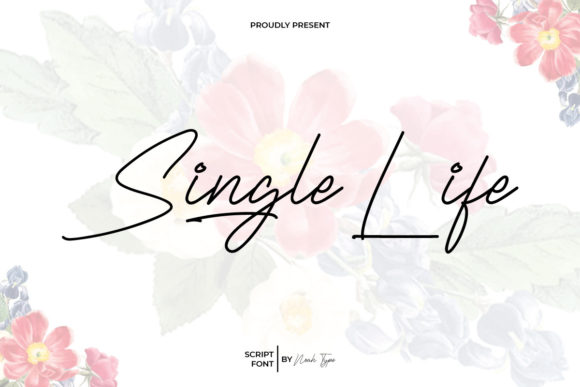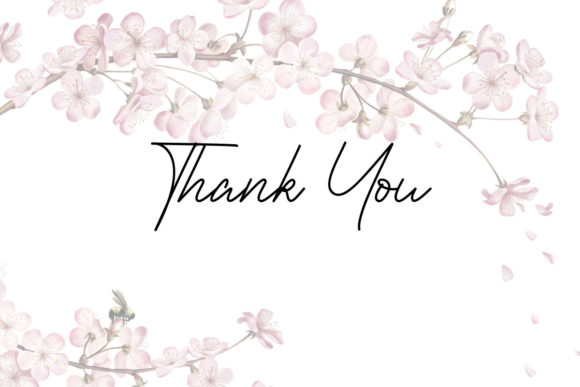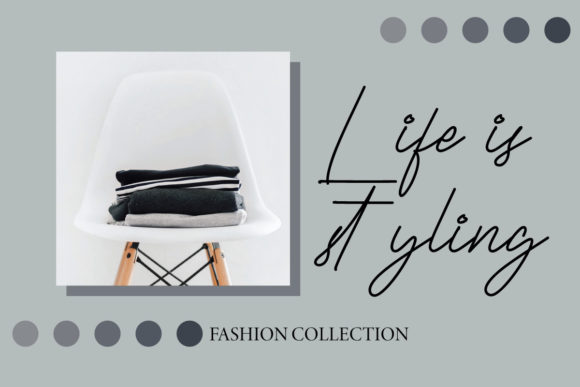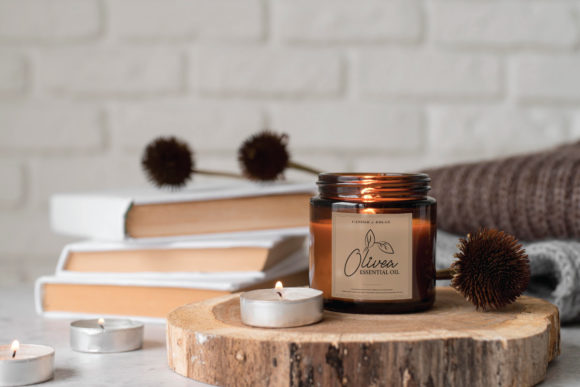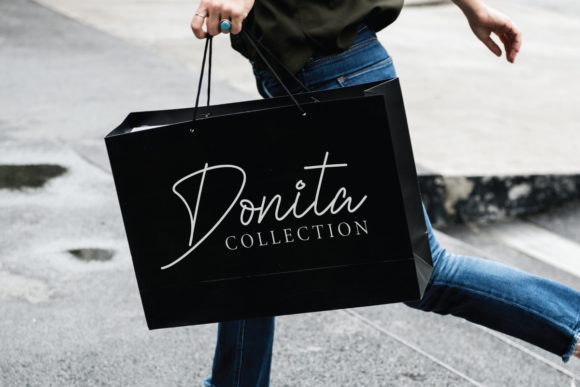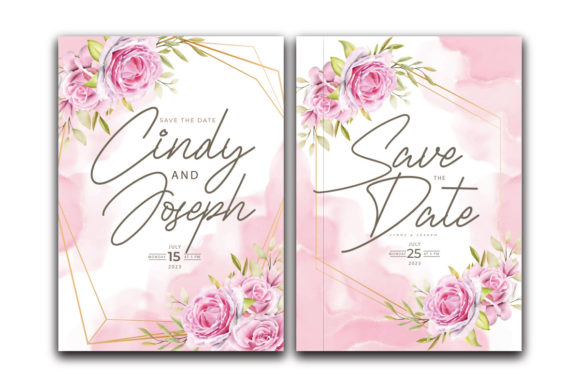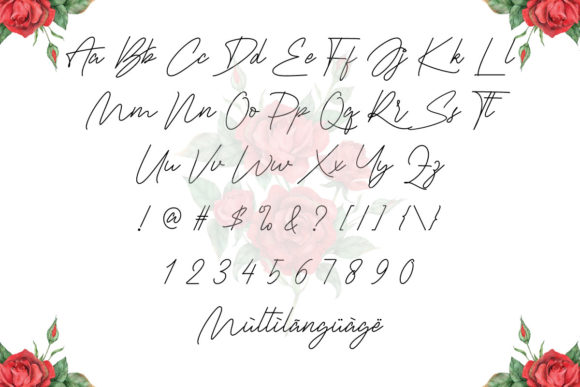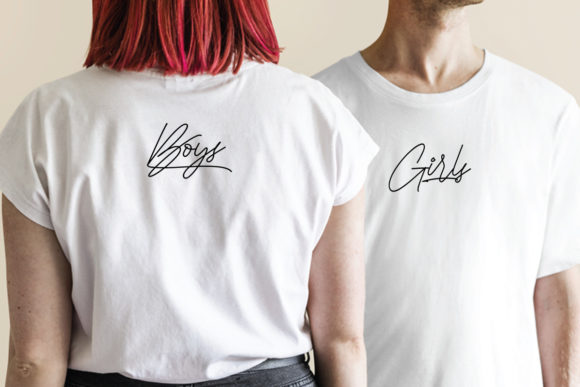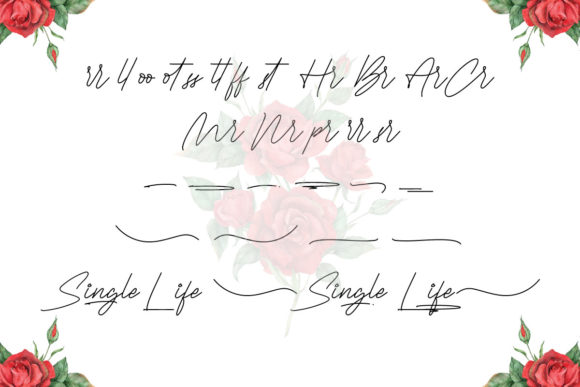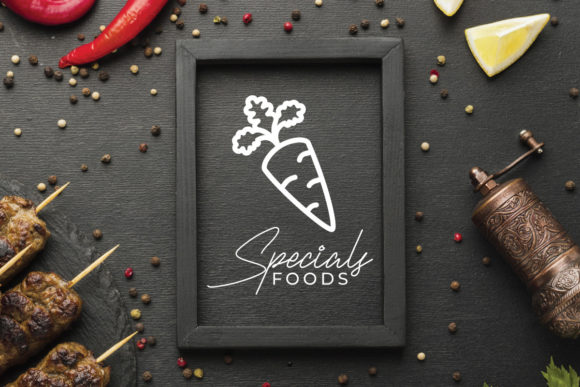
Single Life Font
Single Life is a stylish monoline handwritten font with flawless hand-lettering style. This font is crafted carefully in every single scratch, created to look as close to a natural handwritten script as possible so that it can create the perfect combination on each glyph. This awesome script is for anyone who needs unique and stylish typography.
Single Life Font will be awesome for weddings, engagements, branding, invitations, florist, hair stylist, makeup artists, event organizers, movies, music, festivals, promotions, social media, etc.